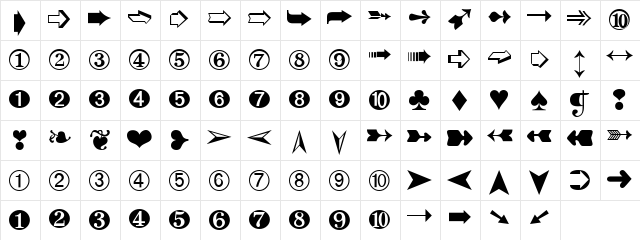
Digits Regular
Design Context for Digits Typeface
Digits channels digital-age aesthetics through its sharp, structured letterforms — ideal for brands that want to signal innovation.
Pro Tip: Try Digits with generous letter-spacing in UI labels and navigation — the geometric forms benefit from room to breathe.